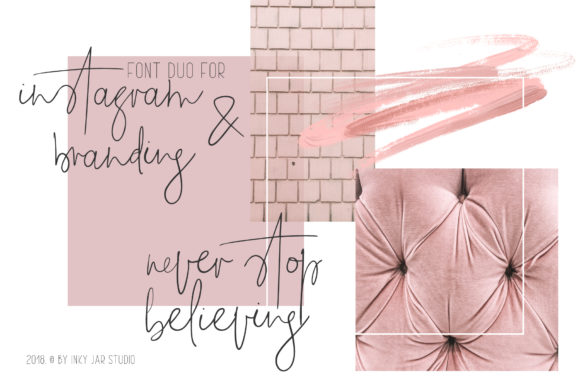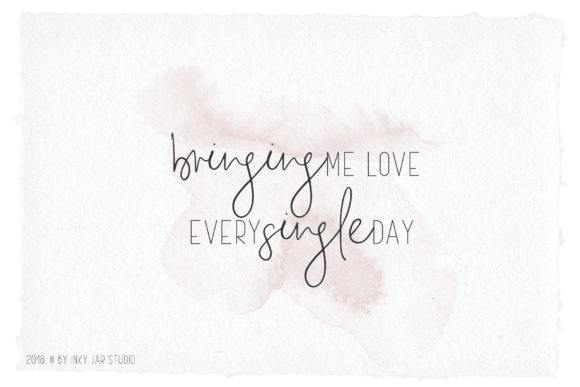
The Girl Duo Font
db-ku.com - Script & Handwritten -- The Girl Font Duo is a perfect combo for Instagram posts, quotes or stories as well as for feminine branding. The script version has a loose, messy signature style and the sans is a thin, elegant, block font which is good looking on its own as well as combined with the script.